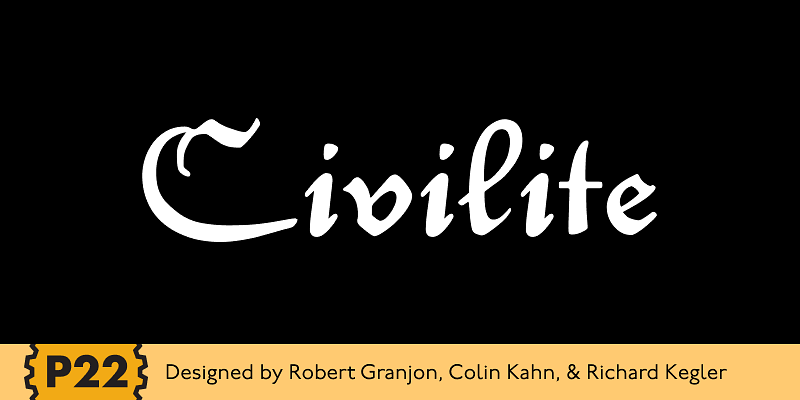
P22 Civilite
P22 Civilite is a historic revival. It is a non-connecting upright handwriting script based on 16th-century sources. It has a lineage from Robert Granjon in France and early Dutch type specimens from the Enschede and Sons Foundry. This family includes the 6 basic Dutch versions of Civilite in both “historical” and “modern” styles. Use it for pirate-themed parties, period-specific exhibits, archival editions, fantasy novels, custom stationery, and postmodern branding.